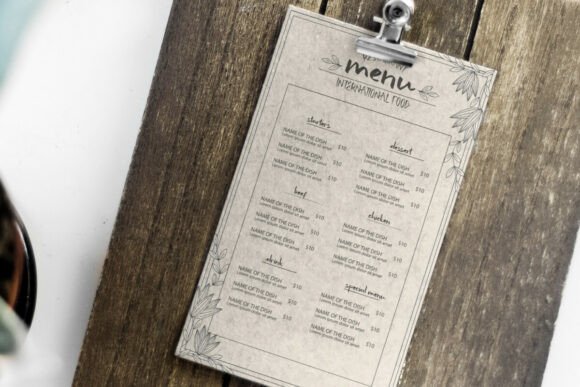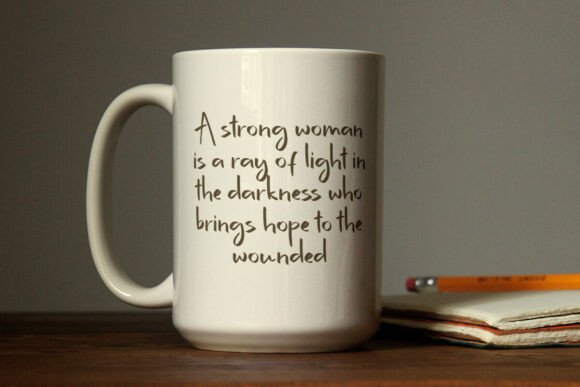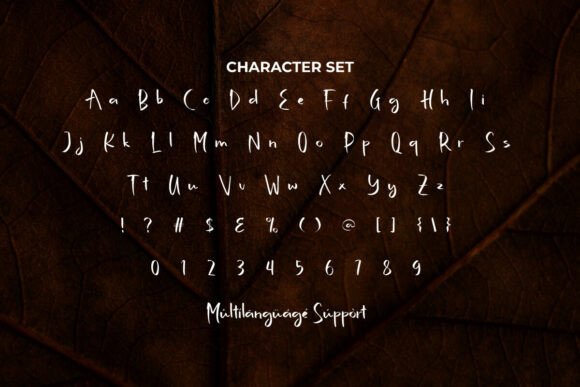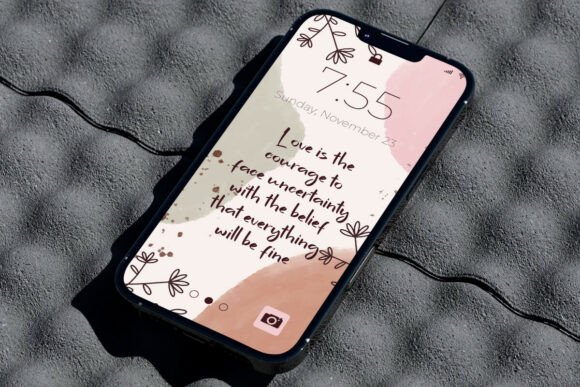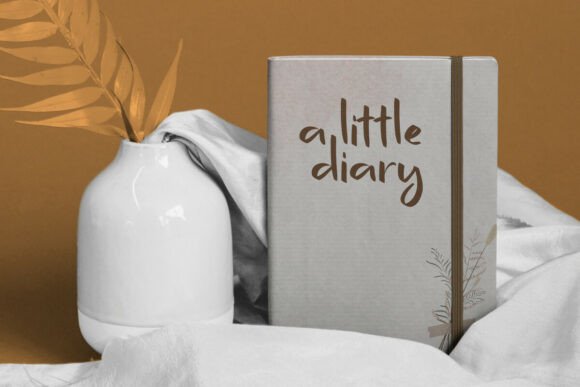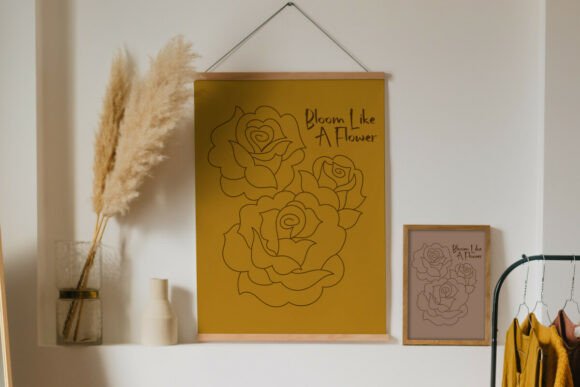
The Ultimate Guide to Help Guys Font: Adding a Personal Touch to Your Designs
Have you ever been in the middle of a design project, and suddenly, you’re stuck on finding the perfect font? I recall a recent experience where a client asked for a font that was both playful and sophisticated. After hours of searching, I stumbled upon Help Guys Font, and it instantly became my go-to. In this article, we’ll dive into what makes Help Guys Font unique, its features, and how to make the most of it in your designs.
What is Help Guys Font?
Help Guys is a handwritten brush display font that brings a dynamic, casual vibe to your designs. Its natural brush texture gives letters a realistic, painted effect, making each glyph feel spontaneous yet cohesive. The font maintains legibility through consistent contrast and balanced proportions, making it perfect for social media graphics, event posters, logos, or apparel designs.
What I Love About Help Guys Font ✨
• ✅ Energetic Curves: The font’s modern handwritten structure and energetic curves give it a lively feel that’s hard to achieve with traditional fonts.
• ✅ Natural Brush Texture: The realistic painted effect adds an artistic touch to any design.
• ✅ Legibility: Despite its casual vibe, Help Guys maintains excellent legibility, making it suitable for a wide range of applications.
• ✅ Open Spacing: The font’s open spacing and organic brush weight transitions create a strong visual impact without losing authenticity.
While Help Guys Font is incredibly versatile, there are a few things to keep in mind:
• 🤔 Limited Use in Body Text: Due to its display nature, Help Guys might not be the best choice for lengthy body text. It’s ideal for headlines and titles.
• 🤔 Requires Attention to Kerning: As with many handwritten fonts, you might need to adjust kerning for optimal readability, especially in larger text sizes.
The Backstory of Help Guys Font
The story behind Help Guys Font begins with a designer who wanted to create a font that felt both personal and artistic. Inspired by the natural flow of brush strokes, the creator aimed to develop a font that could bring a friendly, approachable tone to digital and printed compositions. The result is a font that feels spontaneous yet cohesive, perfect for adding a personal touch to your designs.
Q: Is Help Guys Font suitable for body text?
A: While Help Guys is primarily designed as a display font, it can be used for short paragraphs. However, for longer texts, a more traditional font might be more readable.
Q: Does Help Guys Font support OpenType features?
A: Yes, Help Guys Font supports OpenType features, allowing you to access a range of stylistic alternates and glyphs to enhance your designs.